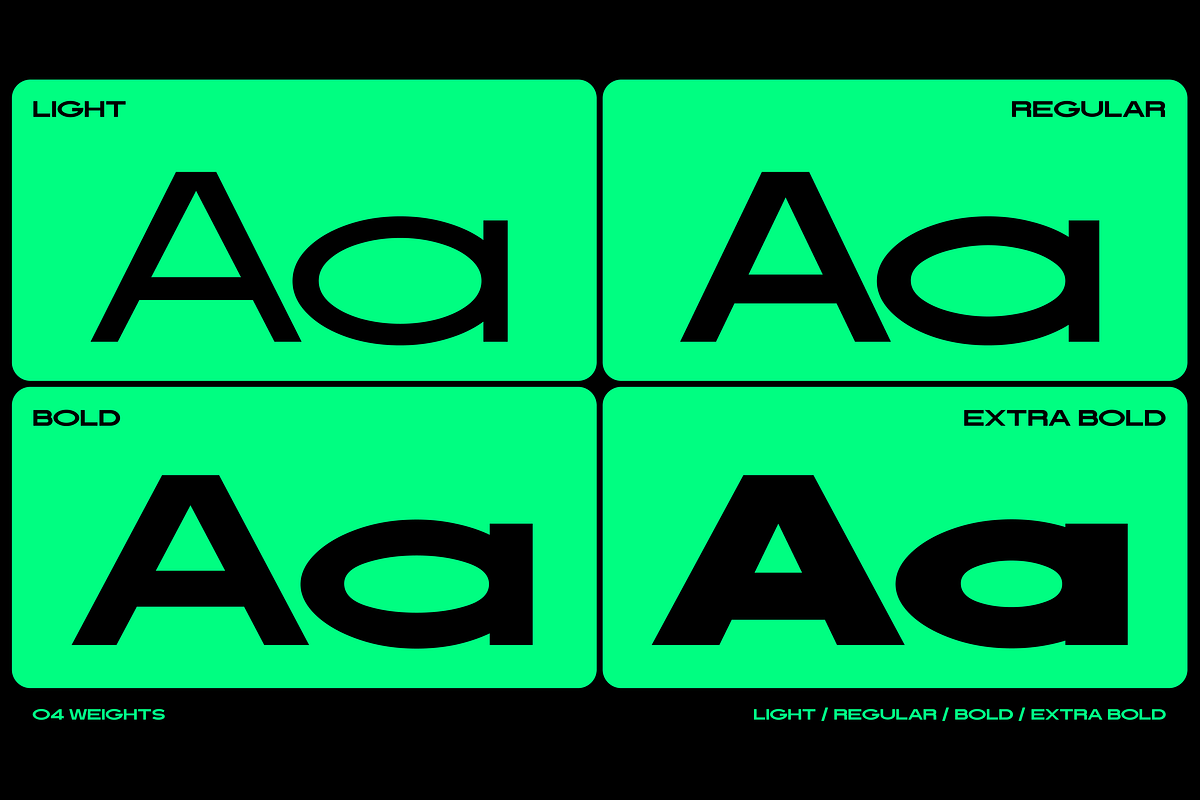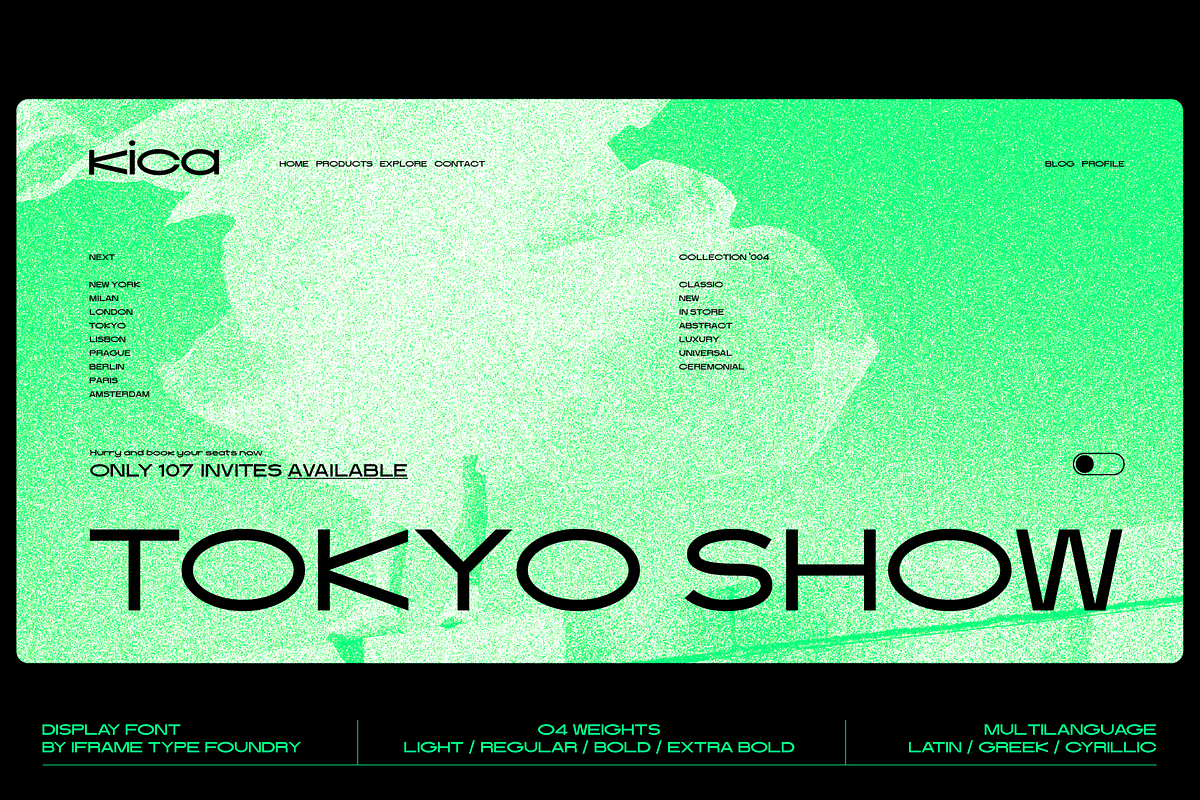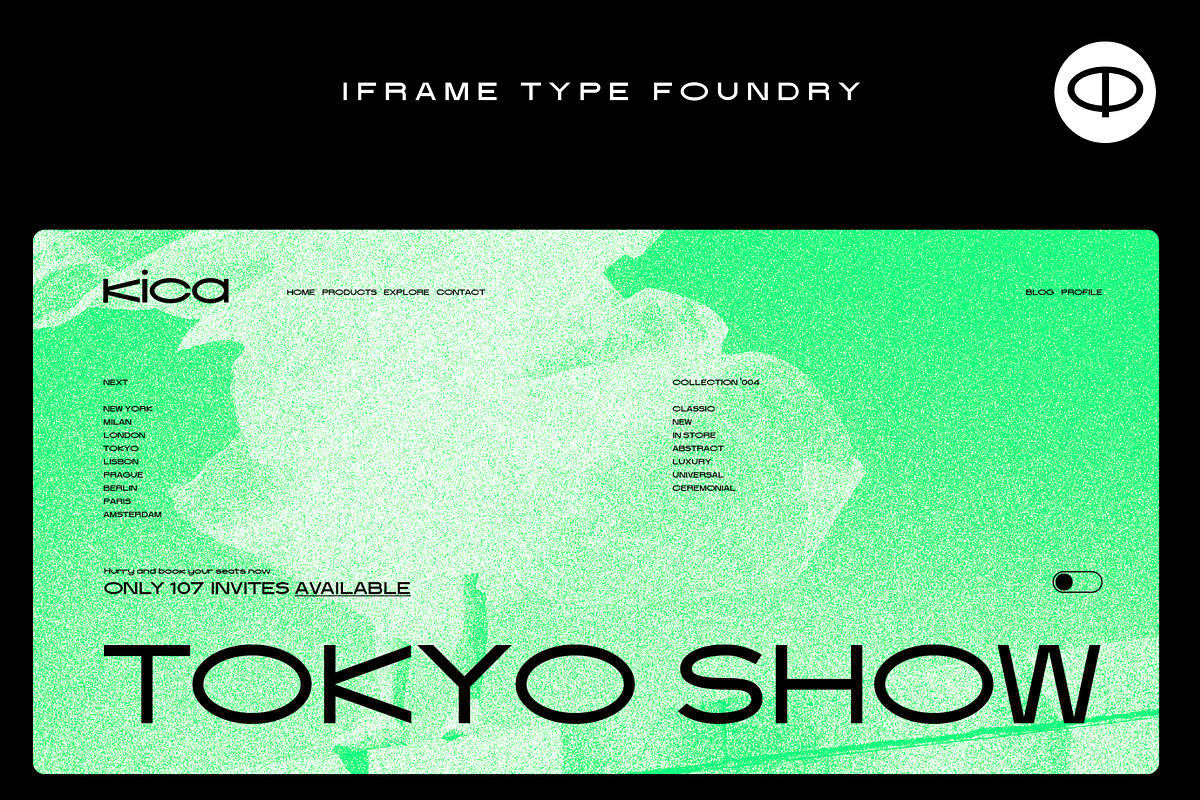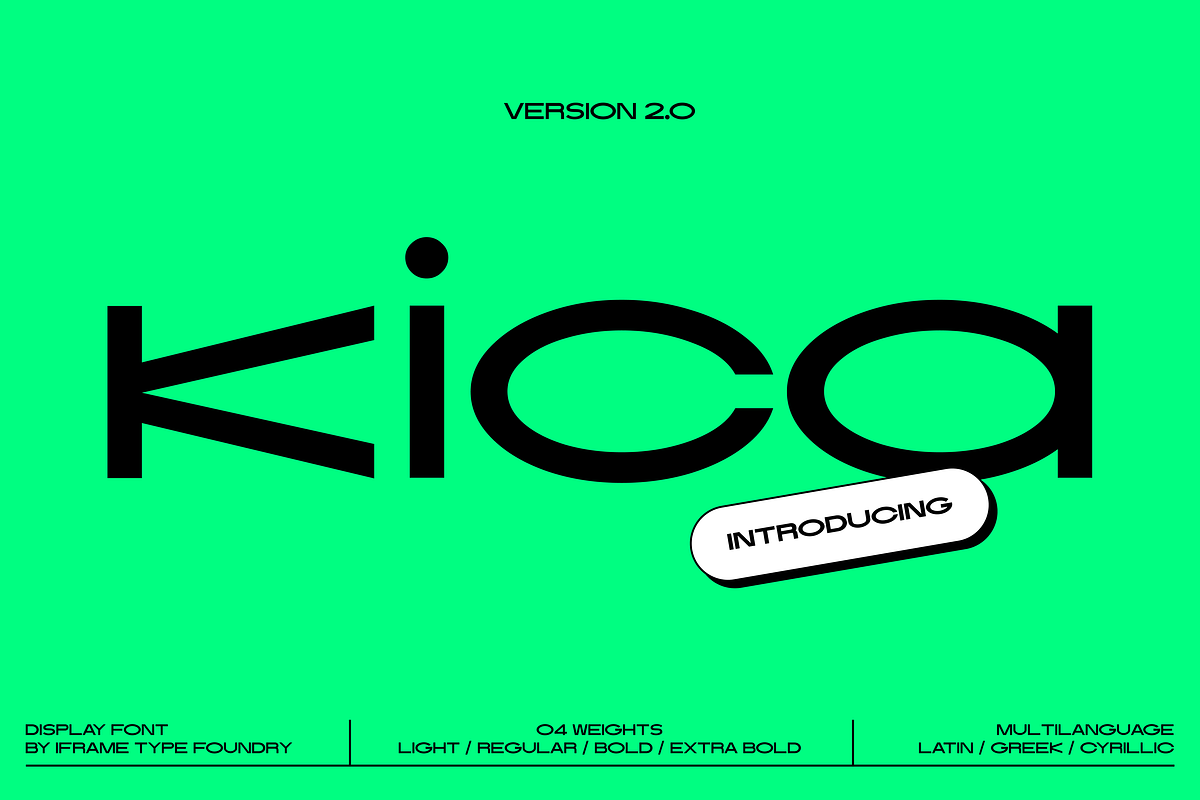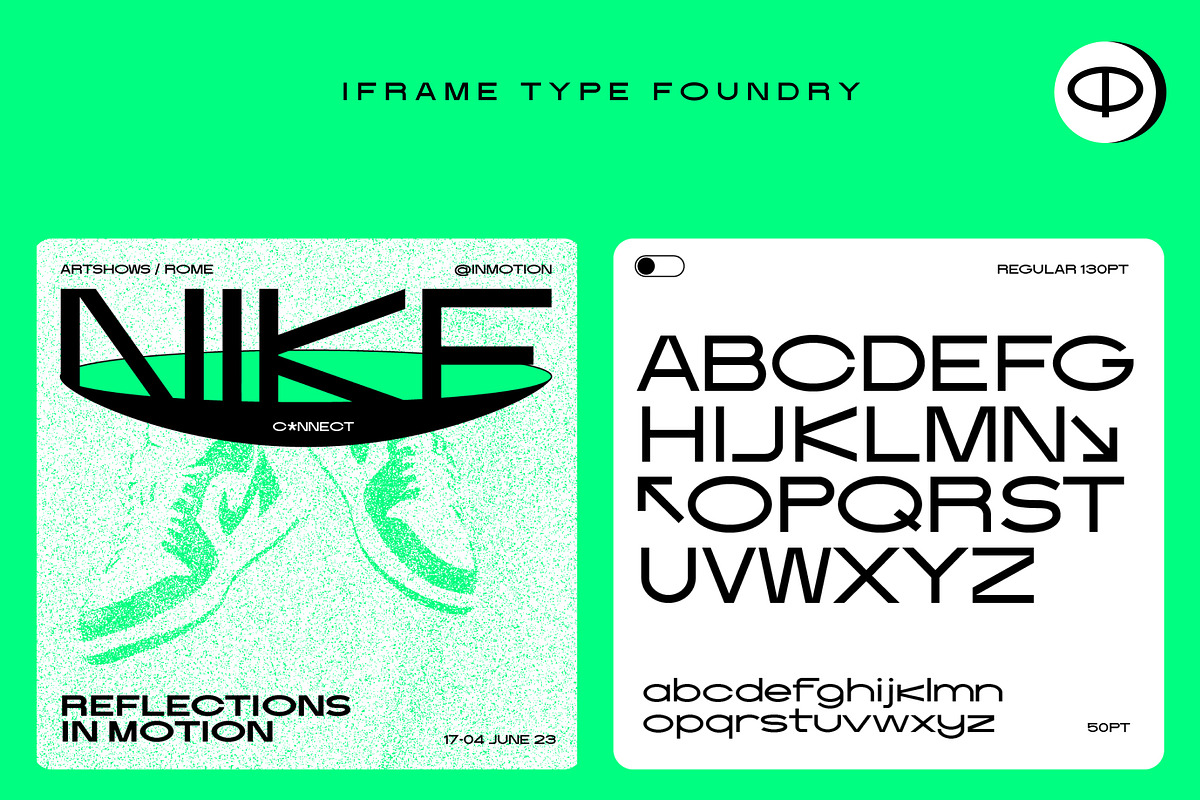
Kica Extended Typeface
3 weights (Light, Regular, Bold)
Extended Font Family
608+ glyphs
Character set A-Z
Language support: Latin, Greek, Cyrillic
Kica is a modern display typeface that is characterized by its clean lines, bold strokes, and geometric shapes. This typeface was designed with the intention of creating a strong visual impact and capturing attention.
Kica's letterforms are constructed with a contemporary, minimalist approach, making it an ideal choice for various types of design projects. Its straight edges and sharp angles convey a sense of sophistication and professionalism, making it a popular choice for branding and advertising campaigns.
This typeface is also highly legible, even at smaller sizes, due to its well-designed letterforms and ample spacing. It features a wide range of weights, including light, regular and bold, making it a versatile choice for various design applications.
Overall, Kica is a stylish and modern typeface that is perfect for creating eye-catching headlines, logos, and other graphic designs. Its bold, confident appearance is sure to make a lasting impression and enhance the visual impact of any project.